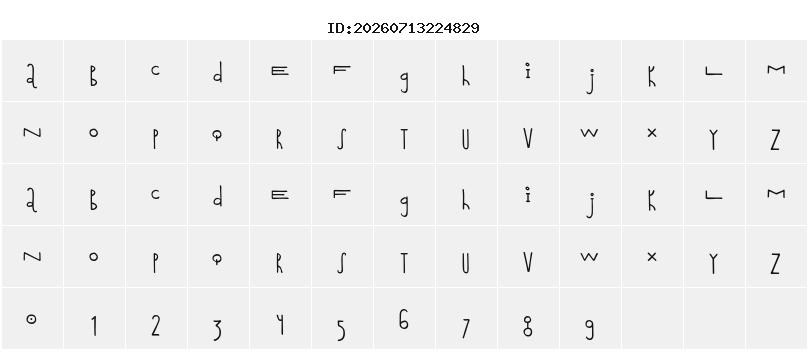
Cabra Preview
About Cabra.otf
Cabra.otf is a modern, elegant sans-serif font designed for ultimate readability and visual harmony. Perfect for branding, headlines, web design, and print materials.